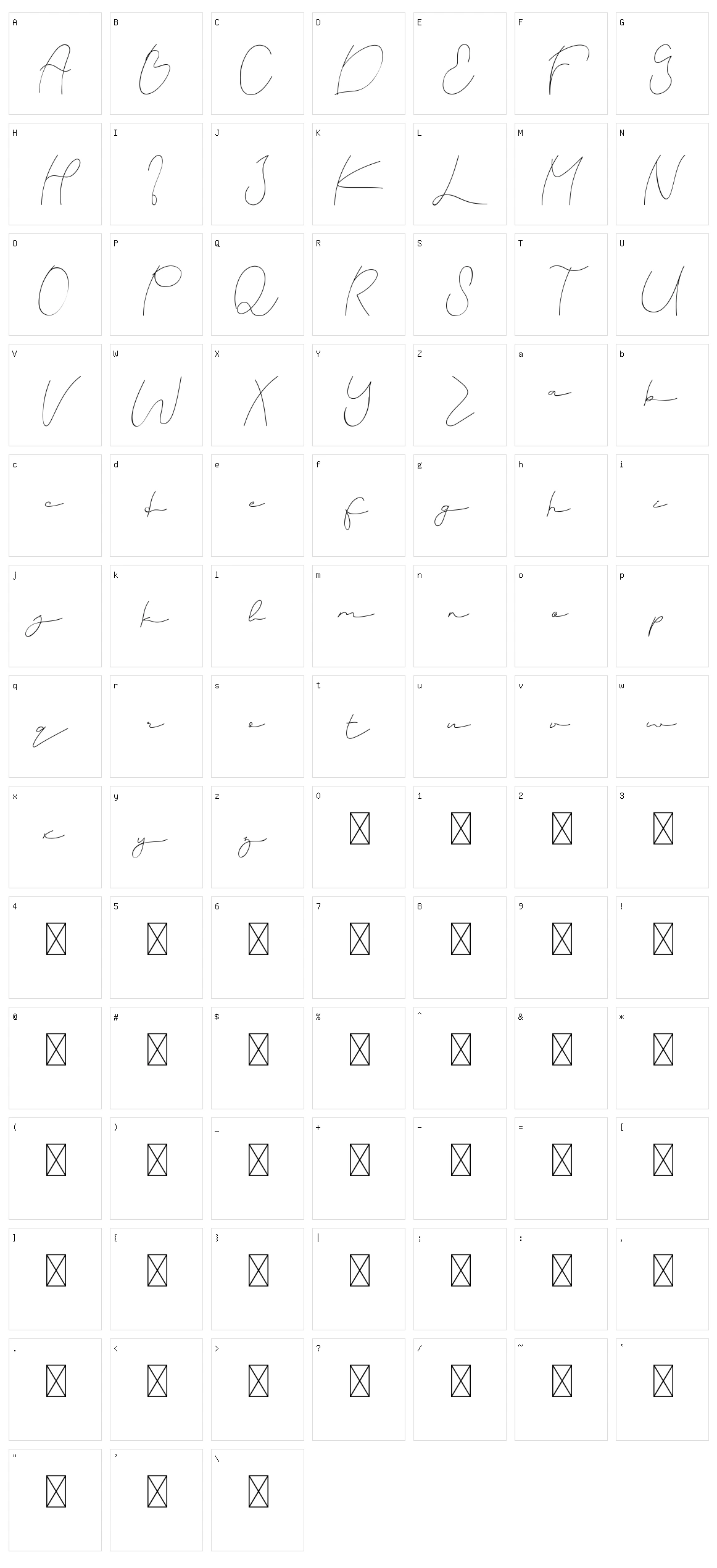
The free font Only Friend is carefully designed by Edric Studio, showcasing a thoughtful balance of creativity and usability and falls under the Script font style. When you download the ZIP file, it contains only 11.84 KB of font files, making it lightweight and quick to download. Please review the license details below to understand permitted usage and distribution rights. If license information is not available, we recommend using this font for personal projects only or contacting the author directly for commercial usage permissions.